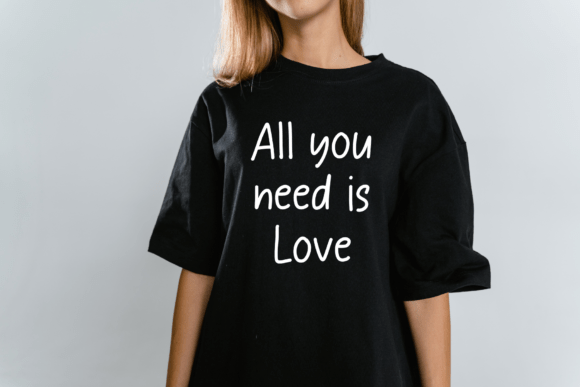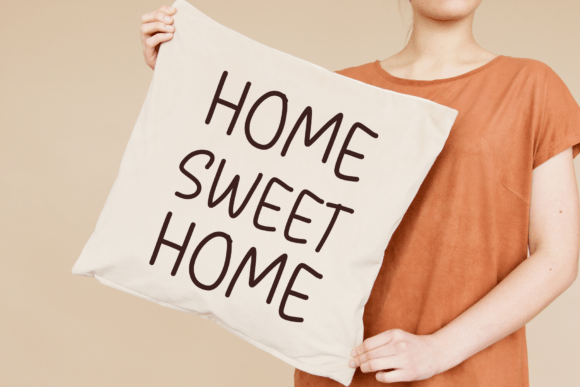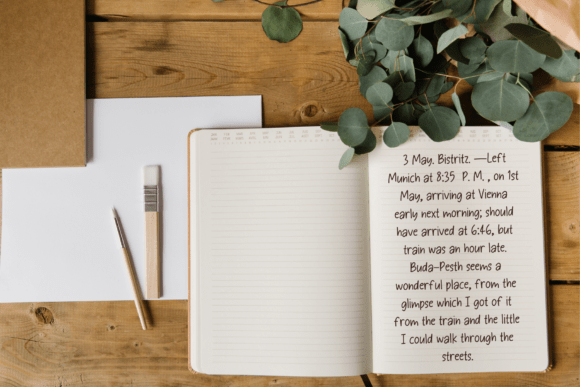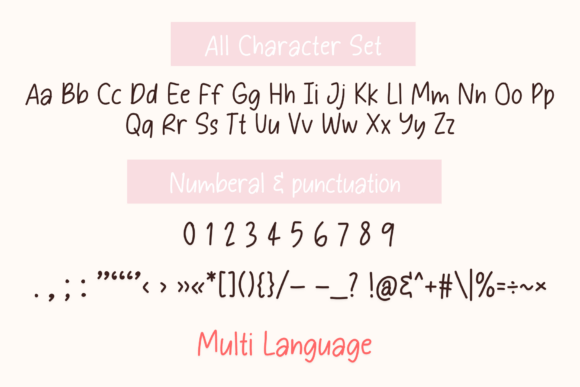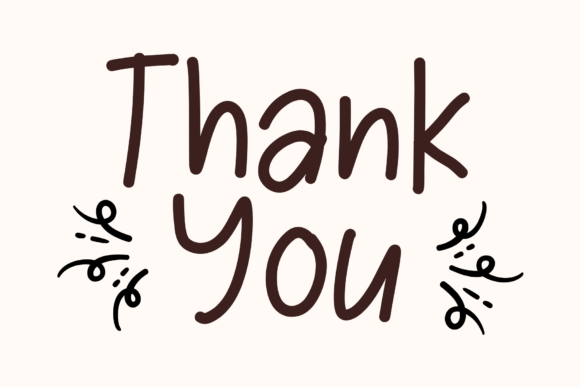
Introducing Daily Jot Font: The Perfect Handwritten Touch for Your Designs
Are you tired of using the same old fonts in your designs? Do you want to add a touch of playfulness and authenticity to your projects? Look no further than Daily Jot Font, a beautiful handwritten font that’s perfect for a wide range of applications. In this article, we’ll take a closer look at Daily Jot Font and explore its many uses, from blog posts and logos to invitations and decorations.
What is Daily Jot Font?
Daily Jot Font is a unique and charming handwritten font that’s designed to bring a personal touch to your designs. Its playful and authentic style makes it perfect for a variety of projects, from casual blog posts to professional branding and advertising materials. With Daily Jot Font, you can add a touch of warmth and personality to your designs that will set them apart from the crowd.
Characteristics of Daily Jot Font
So, what makes Daily Jot Font so special? Here are just a few of its key characteristics:
- Handwritten style: Daily Jot Font is a true handwritten font, with each letter and word carefully crafted to mimic the look and feel of handwriting.
- Playful and authentic: Daily Jot Font has a playful and authentic style that’s perfect for designs that need a personal touch.
- Versatile: Daily Jot Font can be used for a wide range of projects, from blog posts and social media graphics to logos, branding, and advertising materials.
- Easy to read: Despite its handwritten style, Daily Jot Font is easy to read and understand, making it perfect for body text and other applications where readability is key.
Uses for Daily Jot Font
So, what can you use Daily Jot Font for? The possibilities are endless! Here are just a few ideas to get you started:
- Blog posts: Add a personal touch to your blog posts with Daily Jot Font, perfect for lifestyle, fashion, and food bloggers.
- Logos and branding: Use Daily Jot Font to create unique and memorable logos and branding materials for your business or personal brand.
- Invitations and greeting cards: Daily Jot Font is perfect for creating beautiful and personalized invitations and greeting cards for special occasions.
- Planners and journals: Add a touch of personality to your planners and journals with Daily Jot Font, perfect for bullet journaling and other creative projects.
- Decorations: Use Daily Jot Font to create beautiful and personalized decorations for your home or office, from wall art to DIY projects.
Tips for Using Daily Jot Font
Here are a few tips for getting the most out of Daily Jot Font:
- Experiment with different sizes and colors: Daily Jot Font looks great in a variety of sizes and colors, so don’t be afraid to experiment and find the perfect combination for your design.
- Pair with other fonts: Daily Jot Font pairs well with a variety of other fonts, so try combining it with a bold or serif font for added visual interest.
- Use for headlines and body text: Daily Jot Font is easy to read, making it perfect for both headlines and body text.